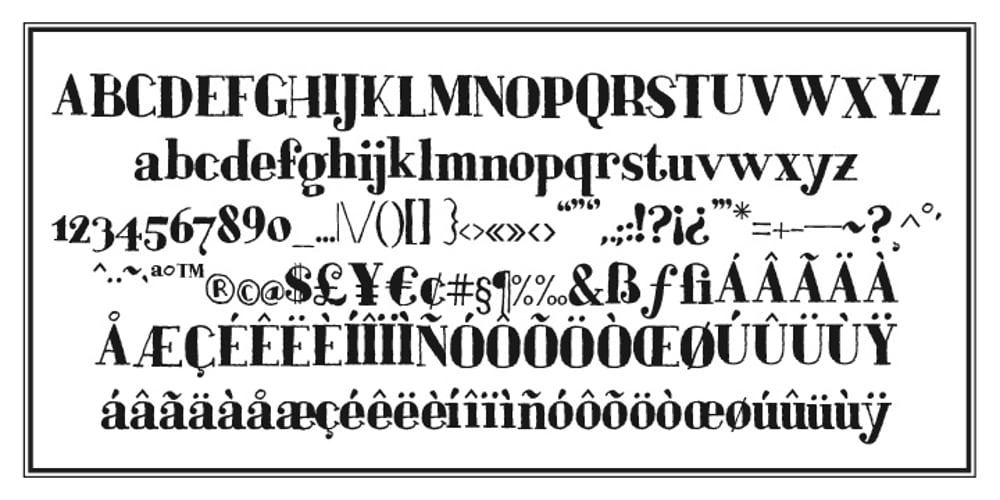
Bodoniez Font Family was designed by Juanjo Lopez and published by Huy!Fonts. Bodoniez contains 6 styles and family package options. Nice typographic experiment consisting of the progressive “bodonization” I have summarized in two steps, by a letter drawn with the same concentration and intensity with which Paris Hilton reading a book, to get something like the sketches that Mr. Gianbattista used to Wrap the sandwich.